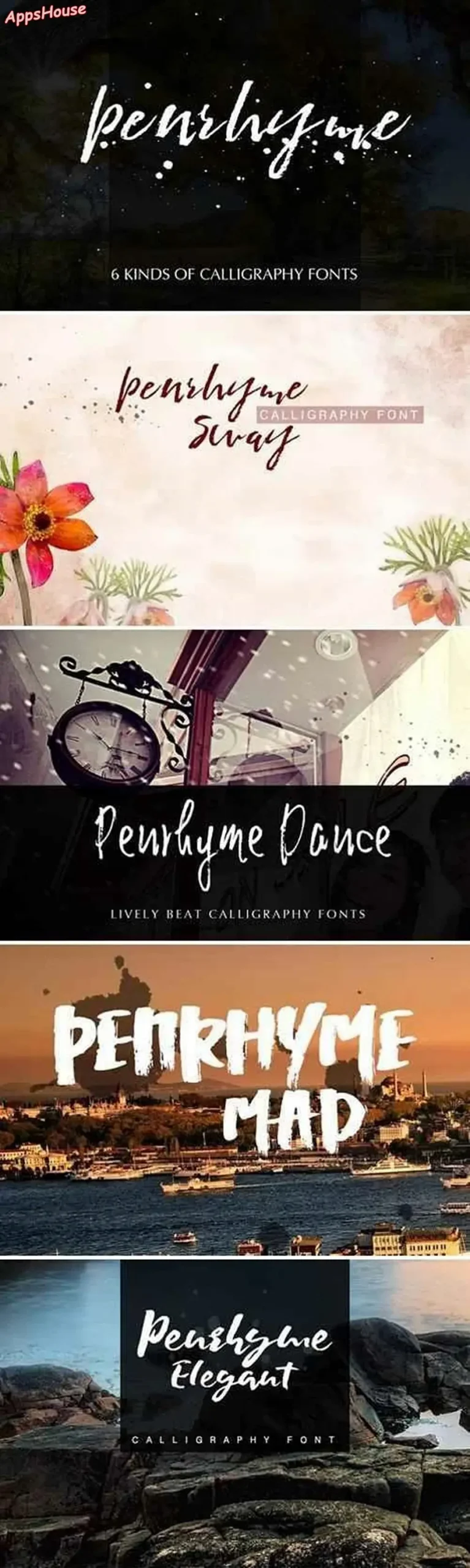
Penrhyme Calligraphy Font
The Penrhyme Calligraphy Font is a beautifully crafted typeface that captures the elegance of traditional calligraphy. With its flowing strokes and artistic flair, this font is perfect for a variety of creative projects.
• Stylish calligraphic design
• Easy to read in both large and small sizes
• Style: Calligraphy
• Ideal for branding projects, invitations, and greeting cards
• Great for web design and UI elements
• Use in print materials for a touch of elegance